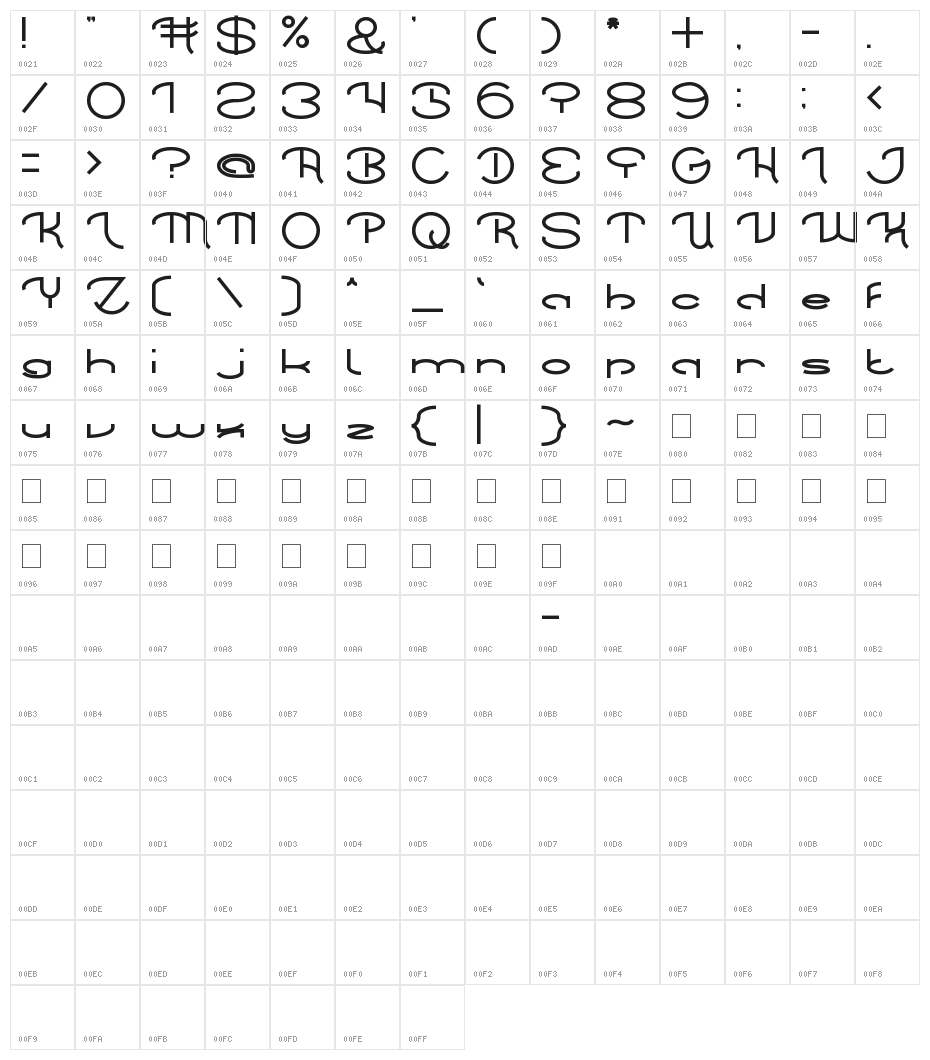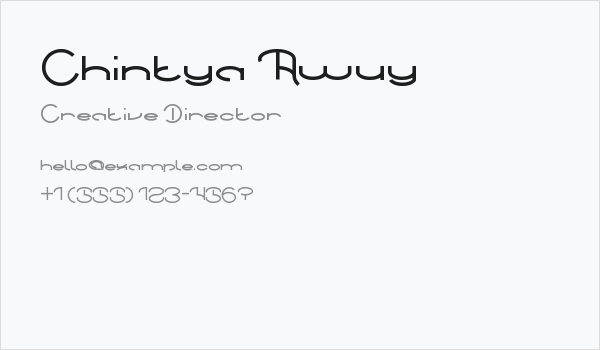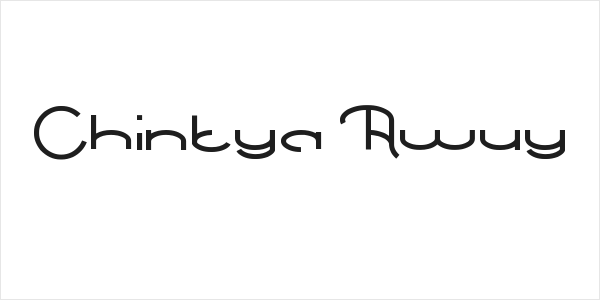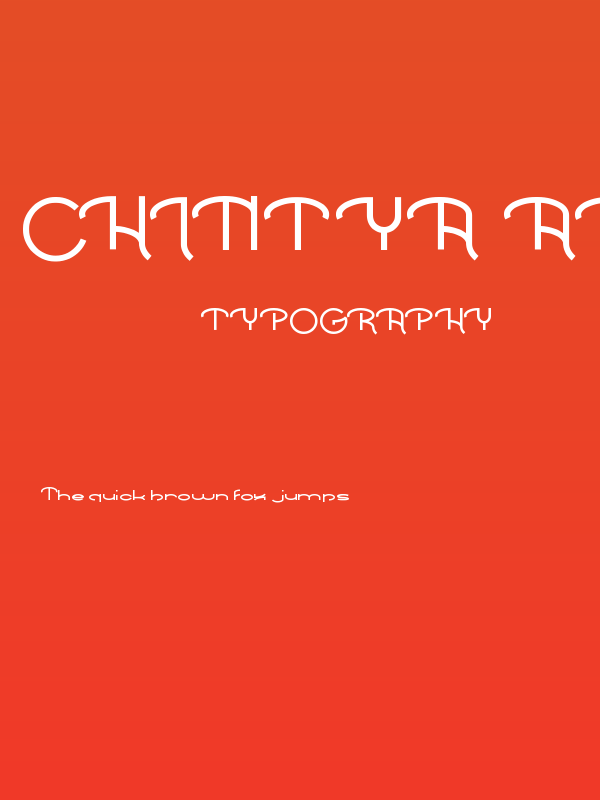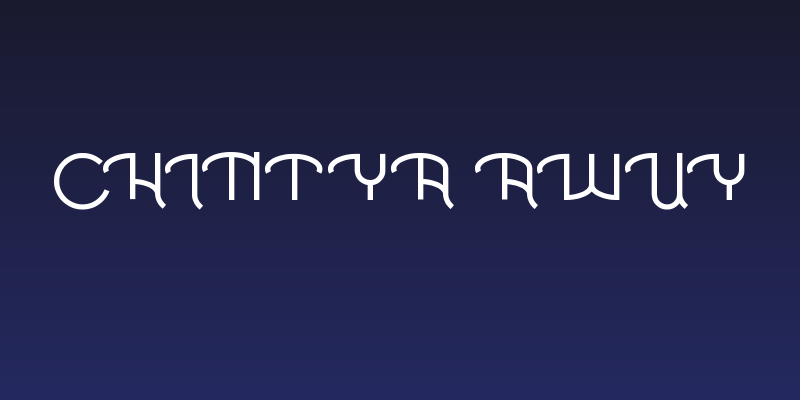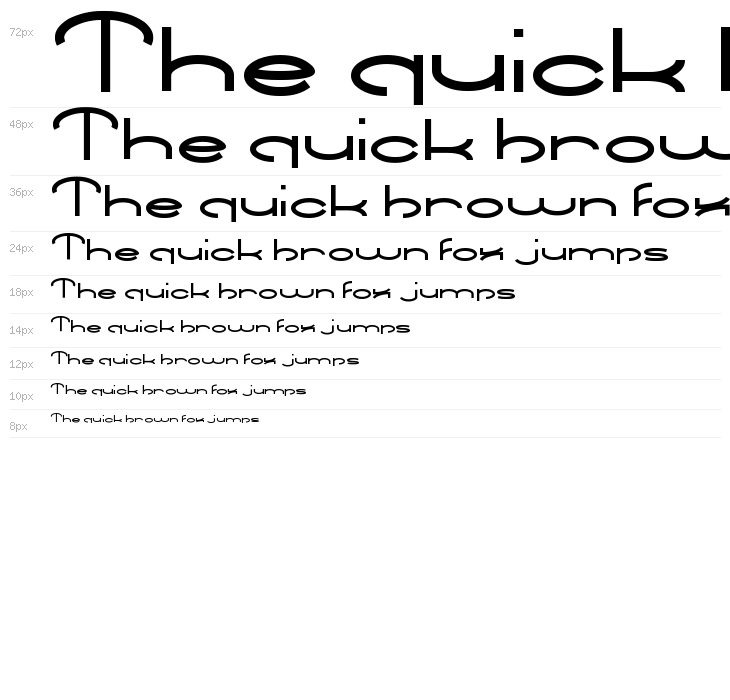
Chintya Awuy Font
Chintya Awuy Description
This font features a unique and artistic design, characterized by its decorative and flowing elements. The uppercase letters are bold and have a distinct curvature, giving them a modern and stylish appearance. The lowercase letters maintain a consistent style, with smooth lines and rounded edges that enhance readability. Numbers are designed with similar artistic flair, ensuring they complement the overall aesthetic. Special characters are creatively integrated, maintaining the font's cohesive look. This font is ideal for projects that require a touch of elegance and creativity.
| Proposed Projects | Ideal for branding, invitations, posters, and creative design projects. |